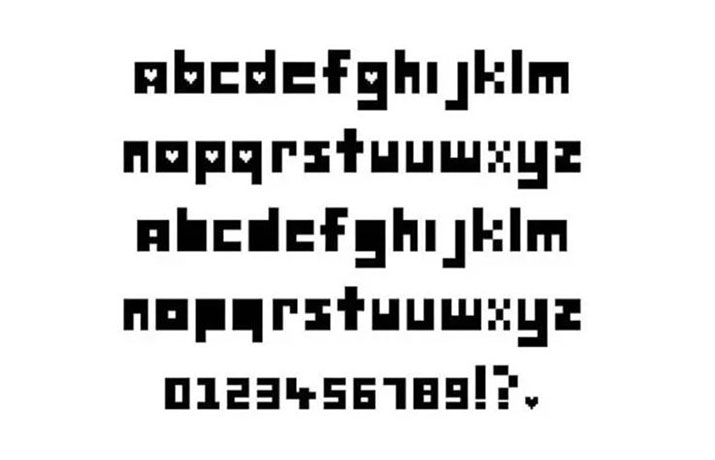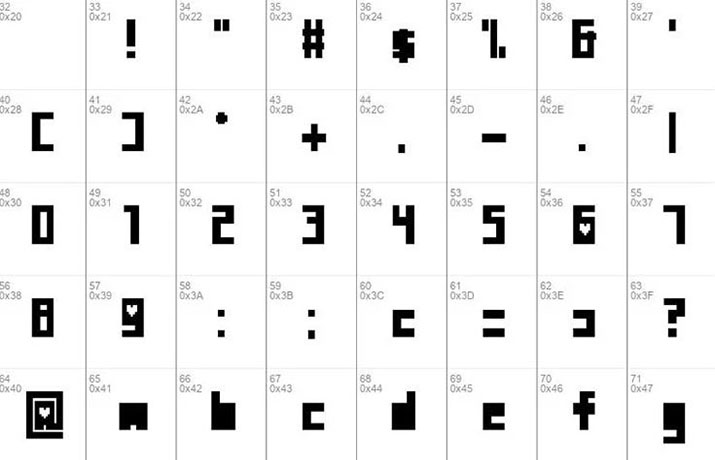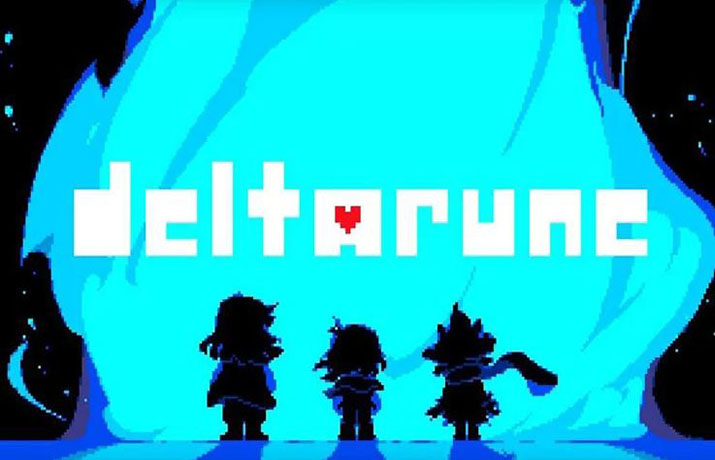
Introducing Deltarune Logo Font! It is a role-playing video game and a spin-off successor to Undertale, developed by Toby Fox.
The first chapter of the game was released for free on October 31, 2018, for macOS and Windows. The second chapter was released on the same platform in September 2021 for free.
This font is available in a regular style with true type features. Also, it has 94 letters including 26 uppercase, 26 lowercase, 10 numbers, and 32 punctuation marks.
“Thus, it is a great choice for you to marvel at amazing games or titles with its help. On the other hand, this excellent-quality font can be used for other projects as well.”
You can use this font for various purposes such as logos, games, digital characters, typography, stickers, headers, retro designs, video titles, posters, and more.
Style: | Logo, Gaming, Display |
- Its bitmap texture makes it simple to make game graphics, game development, movie posters, original emblems, cards for special events, comic covers, cartoon covers, digital, printing on t-shirts, tattoos, social media banners, headers, titles, logos, coding, gaming, and a variety of other things.